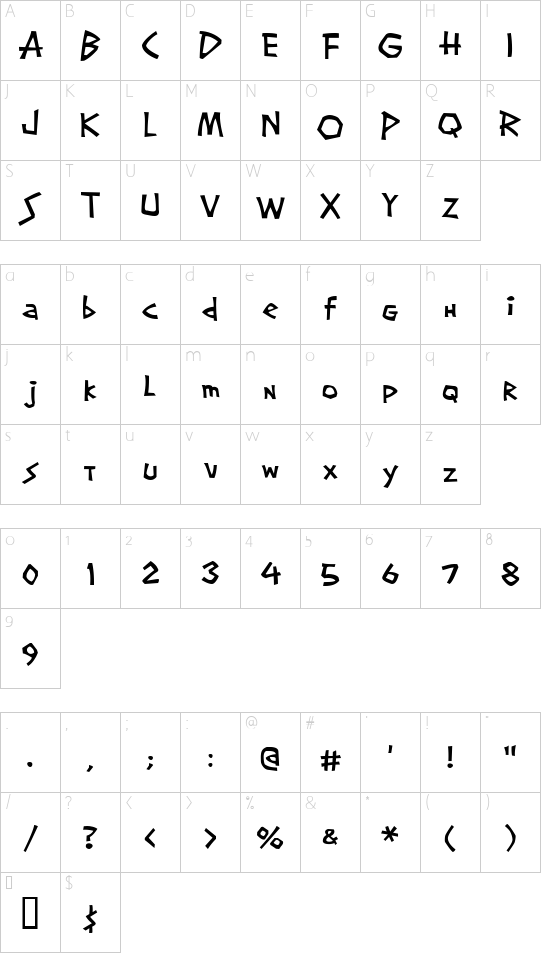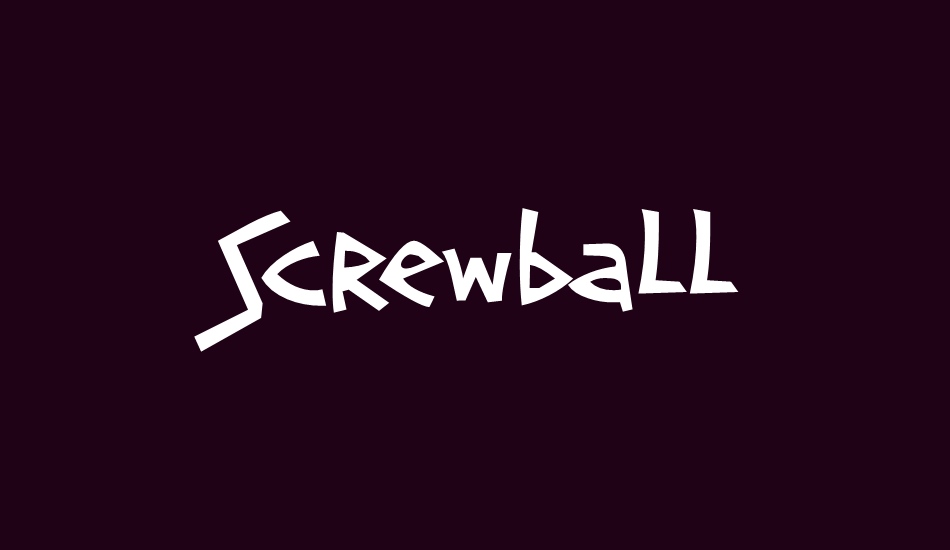
Screwball Font . Screwball à € by harold's fonts. The font subfamily is regular. Screwbal.ttf windows and mac os x compatible. Screwball font is free for both personel and commercial usages. The font family is screwball. Screwball regular is the perfect font for all your fun designs. Truetype and opentype fonts available. This font features a playful and. Comic freaky kids stylish tribal. 62,743 downloads (3 yesterday) 2 comments 100% free. Screwball font is a fancy, cartoon font designed by harolds fonts.
This font features a playful and. Screwbal.ttf windows and mac os x compatible. Screwball font is free for both personel and commercial usages. The font subfamily is regular. Truetype and opentype fonts available. Screwball à € by harold's fonts. 62,743 downloads (3 yesterday) 2 comments 100% free. The font family is screwball. Comic freaky kids stylish tribal. Screwball font is a fancy, cartoon font designed by harolds fonts.
Screwball Font Screwbal.ttf windows and mac os x compatible. The font family is screwball. Truetype and opentype fonts available. Screwball regular is the perfect font for all your fun designs. 62,743 downloads (3 yesterday) 2 comments 100% free. Comic freaky kids stylish tribal. Screwball font is free for both personel and commercial usages. This font features a playful and. Screwbal.ttf windows and mac os x compatible. Screwball à € by harold's fonts. Screwball font is a fancy, cartoon font designed by harolds fonts. The font subfamily is regular.
Screwballkids Fontotfttfsvgepsdxffont Svgfont Etsy Screwball Font Screwball font is free for both personel and commercial usages. This font features a playful and. Screwball font is a fancy, cartoon font designed by harolds fonts. The font family is screwball. Screwbal.ttf windows and mac os x compatible. Truetype and opentype fonts available. Screwball regular is the perfect font for all your fun designs. Comic freaky kids stylish tribal.. Screwball Font.
Free font "Screwball" by Harold's Fonts Screwball Font Screwball font is a fancy, cartoon font designed by harolds fonts. The font subfamily is regular. Screwball regular is the perfect font for all your fun designs. This font features a playful and. Screwbal.ttf windows and mac os x compatible. Truetype and opentype fonts available. Screwball font is free for both personel and commercial usages. 62,743 downloads (3 yesterday) 2. Screwball Font.
Free font "Screwball" by Harold's Fonts Screwball Font Truetype and opentype fonts available. The font subfamily is regular. Screwball font is free for both personel and commercial usages. Screwball à € by harold's fonts. Screwball font is a fancy, cartoon font designed by harolds fonts. Screwbal.ttf windows and mac os x compatible. 62,743 downloads (3 yesterday) 2 comments 100% free. Comic freaky kids stylish tribal. Screwball regular is. Screwball Font.
ScrewballSCapsSSK Font Download For Free, View Sample Text, Rating Screwball Font Screwbal.ttf windows and mac os x compatible. 62,743 downloads (3 yesterday) 2 comments 100% free. Comic freaky kids stylish tribal. The font family is screwball. Truetype and opentype fonts available. The font subfamily is regular. Screwball regular is the perfect font for all your fun designs. Screwball font is free for both personel and commercial usages. This font features a. Screwball Font.
Screwball Font Family by Harold's Fonts Font Bros Screwball Font Screwbal.ttf windows and mac os x compatible. 62,743 downloads (3 yesterday) 2 comments 100% free. Screwball font is a fancy, cartoon font designed by harolds fonts. Truetype and opentype fonts available. The font family is screwball. Comic freaky kids stylish tribal. This font features a playful and. Screwball font is free for both personel and commercial usages. Screwball regular is. Screwball Font.
Download free ScrewBallFinal Bold font screwballfinalbold.ttf Screwball Font Screwball à € by harold's fonts. The font subfamily is regular. This font features a playful and. Screwball regular is the perfect font for all your fun designs. Comic freaky kids stylish tribal. Screwbal.ttf windows and mac os x compatible. Truetype and opentype fonts available. Screwball font is a fancy, cartoon font designed by harolds fonts. 62,743 downloads (3 yesterday). Screwball Font.
Comic Sidekick A Screwball Comedy Font Family! on Behance Screwball Font Screwball font is free for both personel and commercial usages. Comic freaky kids stylish tribal. This font features a playful and. Screwball à € by harold's fonts. 62,743 downloads (3 yesterday) 2 comments 100% free. Truetype and opentype fonts available. The font family is screwball. Screwball regular is the perfect font for all your fun designs. The font subfamily is. Screwball Font.
Screwball uppercase Screwball Font Screwbal.ttf windows and mac os x compatible. Screwball regular is the perfect font for all your fun designs. Truetype and opentype fonts available. The font family is screwball. Screwball font is free for both personel and commercial usages. 62,743 downloads (3 yesterday) 2 comments 100% free. The font subfamily is regular. Comic freaky kids stylish tribal. Screwball font is a. Screwball Font.
Screwball font details Screwball Font Screwball regular is the perfect font for all your fun designs. Truetype and opentype fonts available. This font features a playful and. Screwball font is a fancy, cartoon font designed by harolds fonts. Comic freaky kids stylish tribal. The font subfamily is regular. Screwball à € by harold's fonts. Screwbal.ttf windows and mac os x compatible. The font family is. Screwball Font.